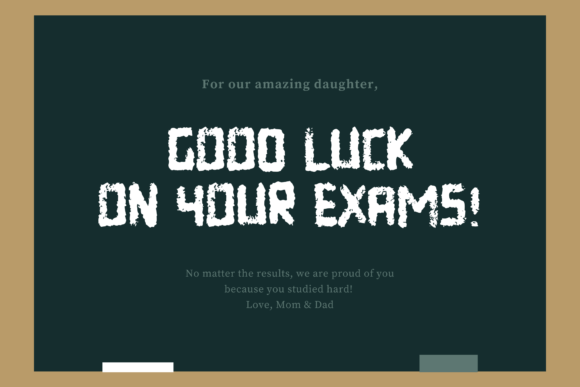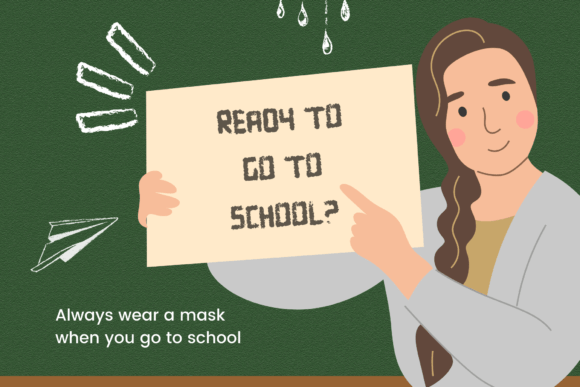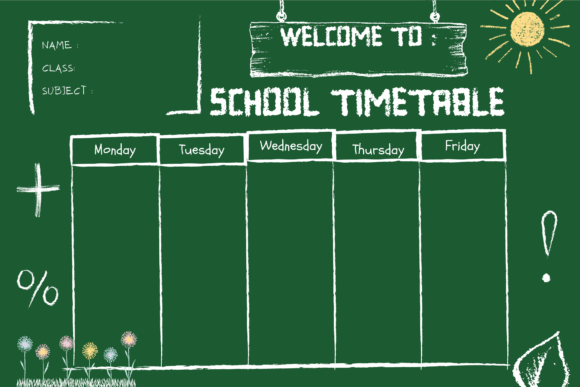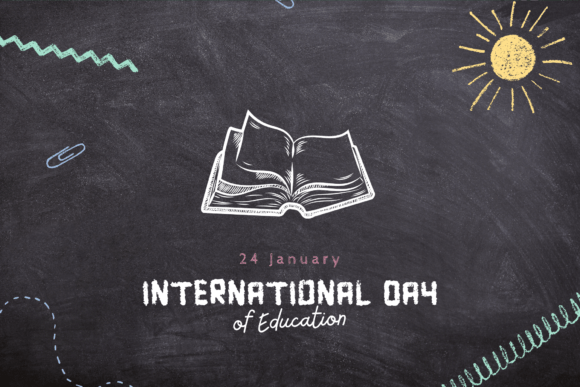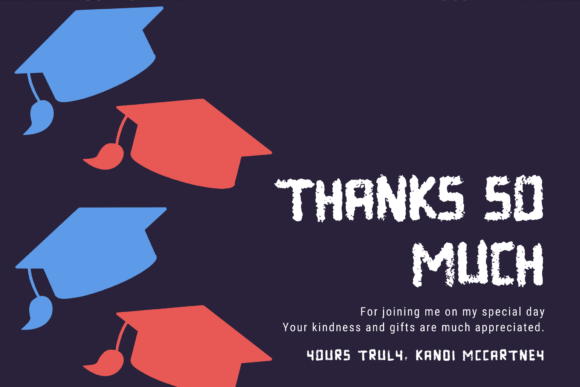
Introducing Blocked Chalk Font: The Ultimate Choice for Playful Designs
Are you tired of using the same old fonts for your designs? Do you want to add a touch of playfulness and authenticity to your projects? Look no further than Blocked Chalk Font! This fun and joyful handwritten display font is perfect for any children’s activity or school project. In this article, we’ll explore the features and benefits of Blocked Chalk Font and how it can elevate your designs to the next level.
The Playful Personality of Blocked Chalk Font
Blocked Chalk Font is a handcrafted font that embodies the spirit of playfulness and creativity. Its chalky texture and lettered style give it a unique and authentic feel that’s reminiscent of childhood memories. The font’s playful personality makes it an excellent choice for designs that require a fun and lively touch. Whether you’re creating materials for kids or want to add some whimsy to your adult designs, Blocked Chalk Font is the perfect fit.
Key Features of Blocked Chalk Font
• Handwritten display font: Blocked Chalk Font is a carefully crafted handwritten font that’s designed to make your designs stand out.
• Chalky texture: The font’s chalky texture gives it a unique and authentic feel that’s perfect for creating playful designs.
• Playful and joyful: Blocked Chalk Font is designed to evoke feelings of happiness and playfulness, making it perfect for children’s activities and school projects.
• Easy to read: Despite its playful nature, Blocked Chalk Font is easy to read and understand, making it suitable for a wide range of design applications.
Benefits of Using Blocked Chalk Font
So, why should you choose Blocked Chalk Font for your designs? Here are just a few benefits of using this amazing font:
• Adds a touch of playfulness: Blocked Chalk Font is the perfect way to add some whimsy and fun to your designs.
• Creates a sense of authenticity: The font’s chalky texture and handwritten style give it a genuine and authentic feel.
• Perfect for kids’ designs: Blocked Chalk Font is a natural fit for designs aimed at children, such as activity sheets, posters, and educational materials.
• Versatile: Despite its playful nature, Blocked Chalk Font can be used in a wide range of design applications, from digital projects to print materials.
How to Use Blocked Chalk Font in Your Designs
Using Blocked Chalk Font in your designs is easy! Here are a few tips to get you started:
• Pair it with bold colors: Blocked Chalk Font looks amazing with bright, bold colors that match its playful personality.
• Use it for headings: The font’s display style makes it perfect for headings and titles.
• Experiment with textures: Blocked Chalk Font’s chalky texture is a key part of its charm, but you can also experiment with other textures to create unique effects.
Font Name Blocked Chalk Font
Author CreativeResources
In conclusion, Blocked Chalk Font is a fun and joyful handwritten display font that’s perfect for adding a touch of playfulness and authenticity to your designs. Its chalky texture and lettered style make it a unique and eye-catching choice for children’s activities, school projects, and adult designs that require a whimsical touch. With its ease of use and versatility, Blocked Chalk Font is a must-have for designers and crafters looking to elevate their designs to the next level.